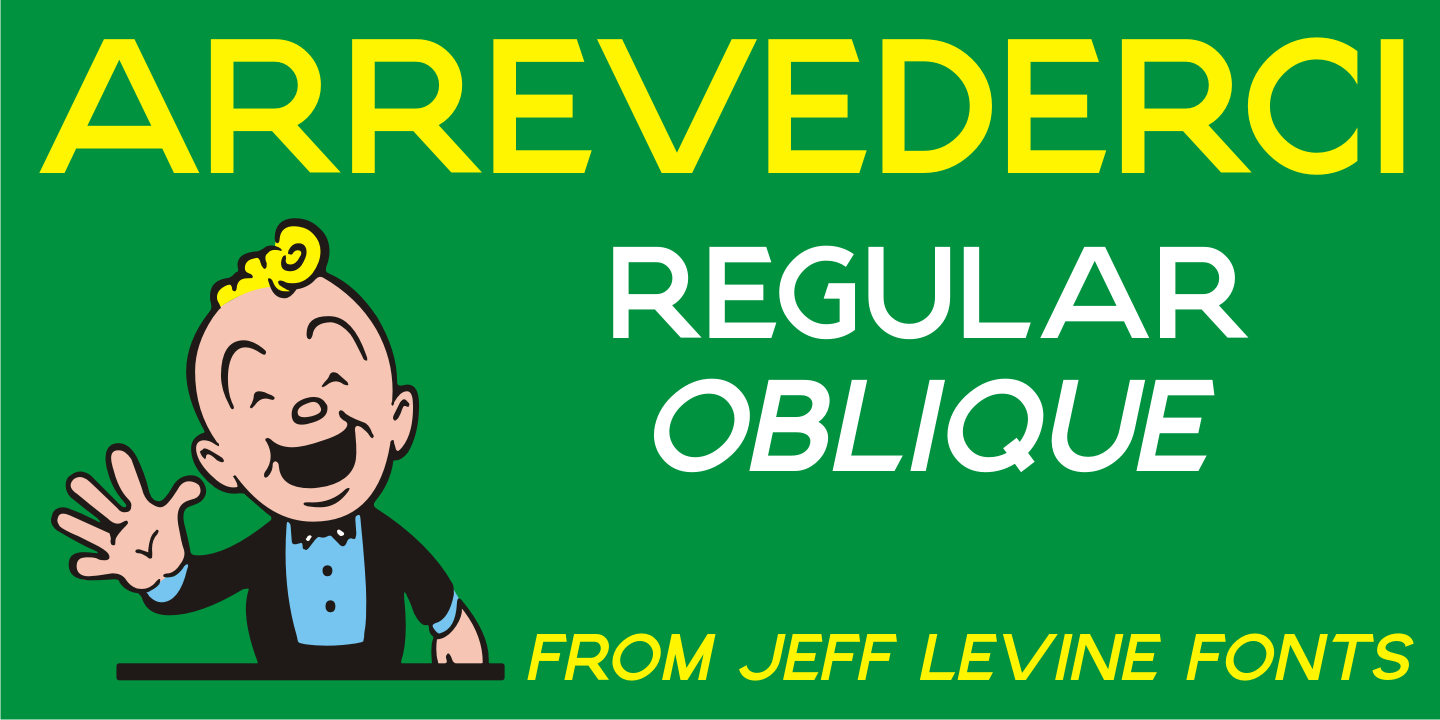
Arrevederci
The 1954 sheet music for the song 'Arrevederci Roman (Goodbye to Rome)” [from the MGM film 'The Seven Hills of Rome”] was hand lettered in a medium-wide sans serif.
This design is now available digitally as Arrevederci JNL in both regular and oblique versions.